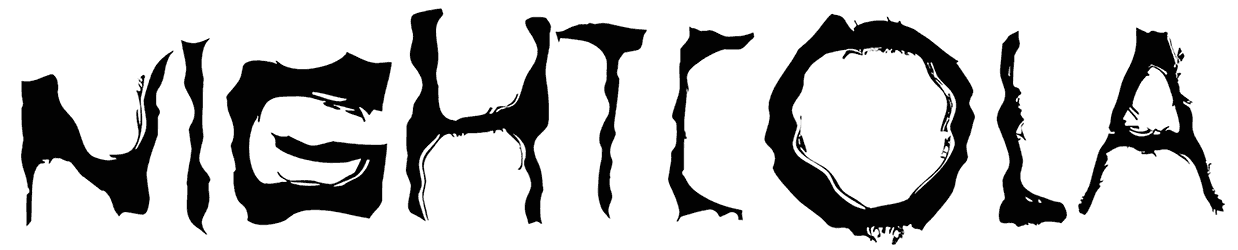
NightCola Font
Designed byBumbayo Font Fabrik
The charm of NightCola comes from the vibrations as if they were in the designer’s hands while writing the letters. This horror font has a very shocking appearance, mainly bloody, faded modes are used to write letters.
The letters of this death font do not include small members, and the capital letters have two styles. Therefore, evoking a sense of horror and terror in Halloween posters, crime books, and action films can appear very successful.